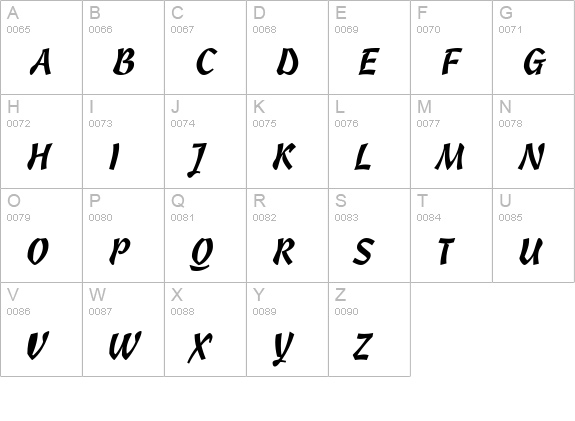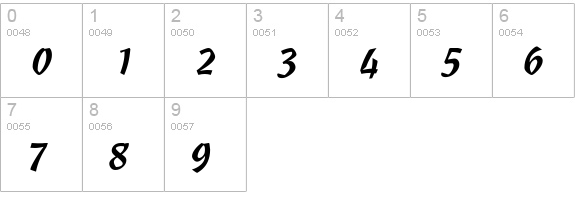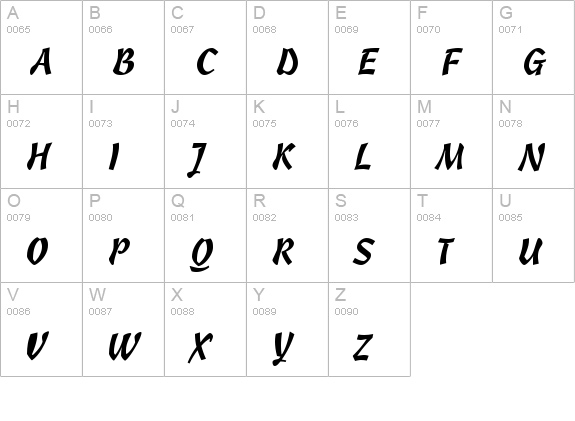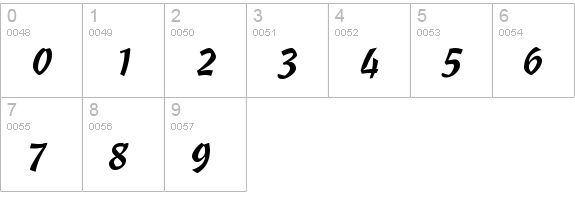
Cassia Font Details
Cassia font is a stunning typeface that exudes elegance and sophistication. With its graceful curves and stylish design, Cassia is perfect for adding a touch of class to any project. Whether you're designing a wedding invitation, creating a logo, or working on a branding project, Cassia font is sure to make a statement. The best part? Cassia font is completely free to download at FontsMarket.com. This means you can access this beautiful font without any cost, making it a fantastic option for designers on a budget. So why wait? Download Cassia font today and elevate your designs with its timeless beauty.